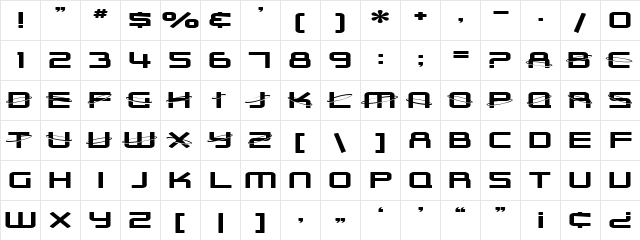
SF Outer Limits ExtUpright Regular
Design Context for SF Outer Limits ExtUpright
SF Outer Limits ExtUpright is a composed and adaptable typeface that performs quietly and consistently across a wide range of design contexts.